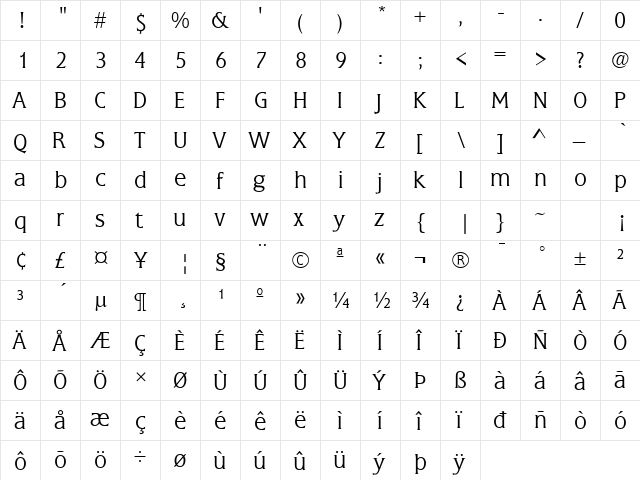
Flare Light Gothic Regular
Design Context for Flare Light Gothic Typeface
Flare Light Gothic takes a clean, functional approach — its unadorned letterforms prioritise legibility and work reliably across screen and print environments. Its slender proportions lend an understated elegance to any composition.
Ideal for fashion and beauty branding, minimal editorial layouts, and premium digital experiences.
Font Pairing: Pair Flare Light Gothic with a medium or bold serif for headlines — the weight contrast creates an elegant, high-end feel.
Pro Tip: Avoid using Flare Light Gothic at very small sizes where its slender strokes can disappear. It performs best at medium to large sizes.